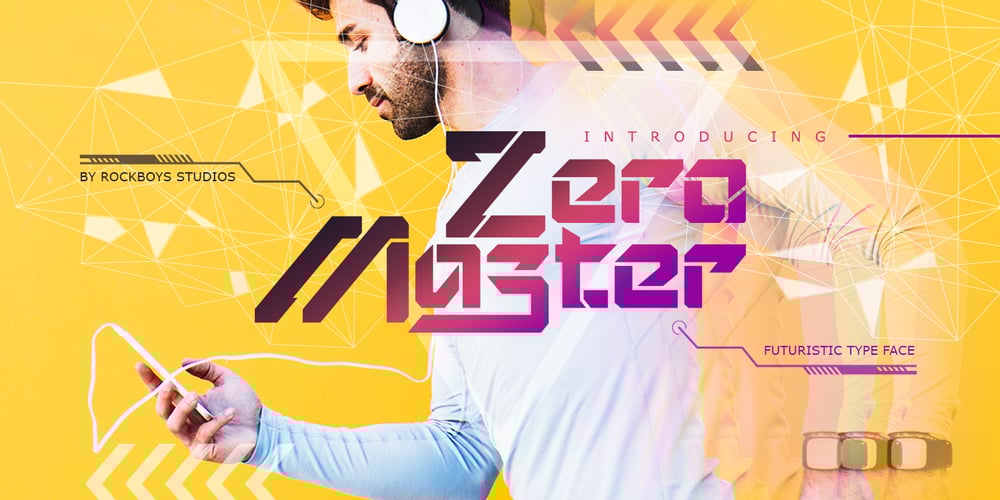
Zero Master
Zero Master font
Zero Master Font Family was designed by Hayinah and published by Rockboys Studio. Zero Master contains 1 styles and family package options. Zero Master is a modern and clean technology, Hi Tech font style. This font looks modern, sci-fi, futuristic, future, readable, stylish, catchy and easy to use. This font is PUA encoded which means you can access all of the glyphs and swashes with ease! It features a varying baseline, smooth lines, gorgeous glyphs and stunning alternates.